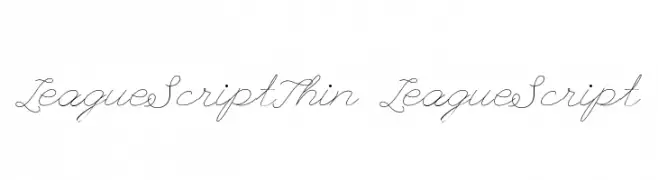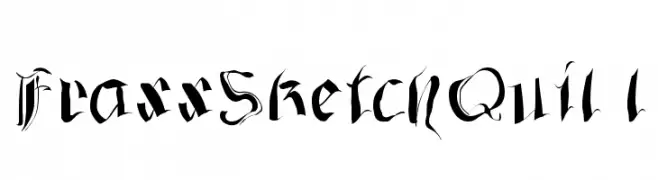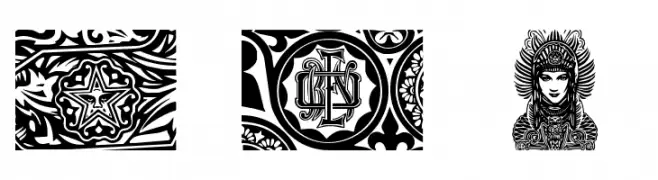
An elegant, thin script font with flowing, interconnected letters and high contrast strokes.
A bold, calligraphic font with ornate, flowing designs and sharp angles.
A bold blackletter font with sharp, angular lines and a gothic style.
A bold, gothic Blackletter font with ornate detailing and a playful t-shirt motif.
A bold, gothic-style font with intricate, medieval-inspired letterforms.
A bold, condensed sans-serif font with a modern and impactful style.
Decorative, graphic-heavy font with unique artwork for each character.
A graffiti-style font using hand gestures to represent letters and numbers.
A collection of decorative feminine and beauty-themed icons.
Modern geometric sans-serif with clear, open shapes.